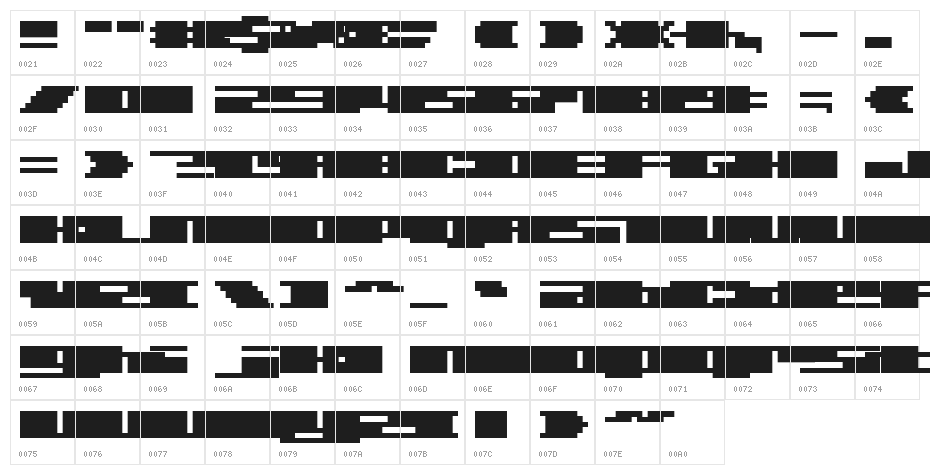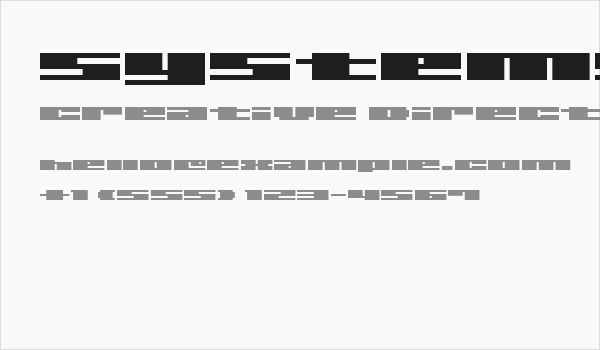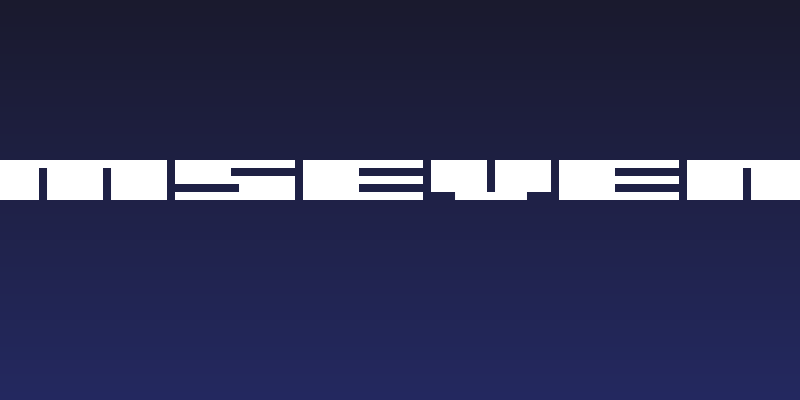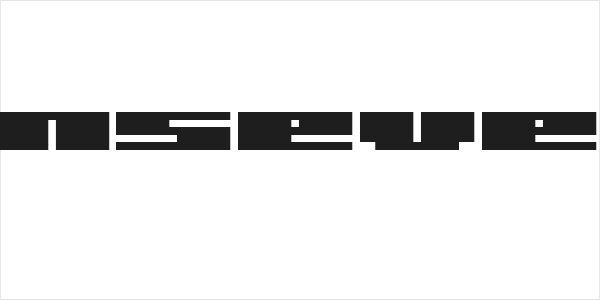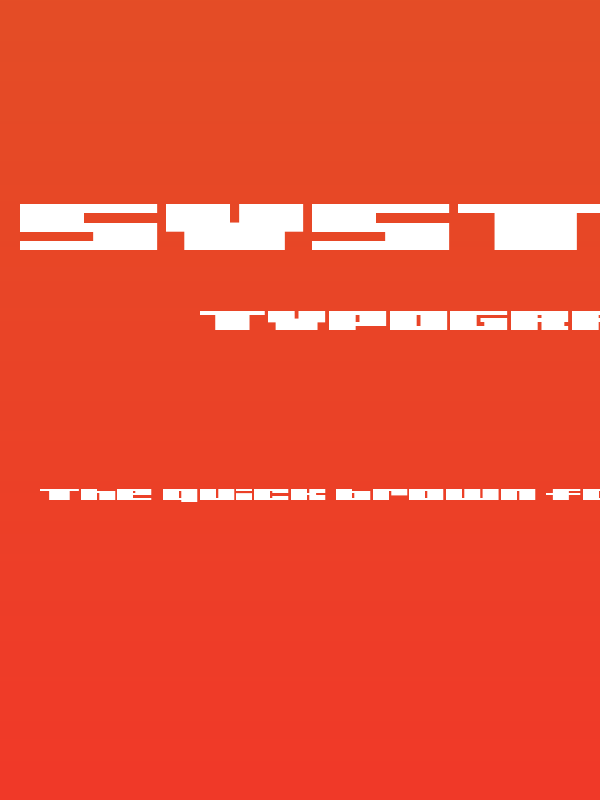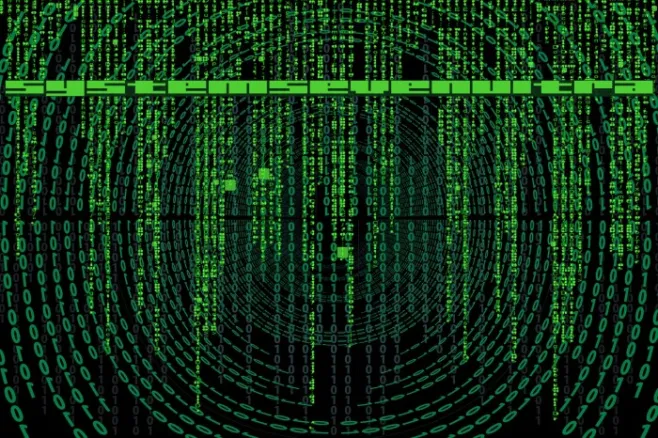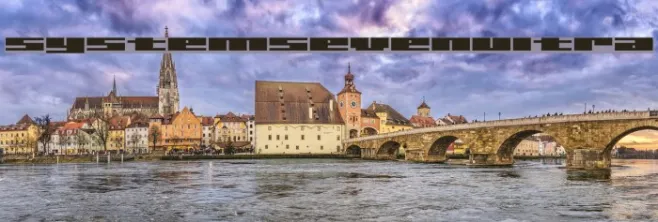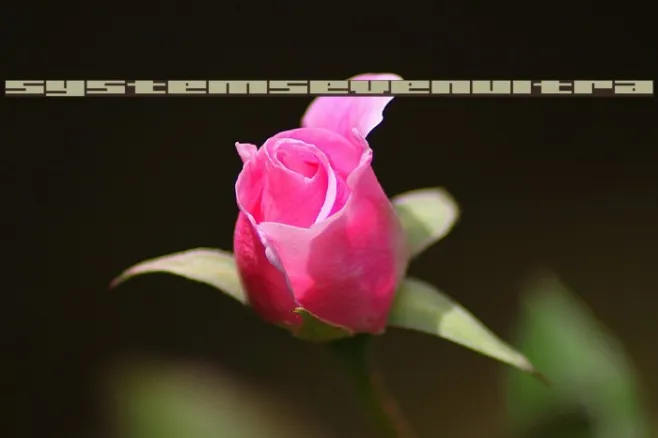
SystemSevenUltra Font
SystemSevenUltra Description
This font features a bold, geometric design with a futuristic and digital aesthetic. The characters are constructed with sharp angles and straight lines, creating a blocky and pixelated appearance. The uppercase and lowercase letters maintain a consistent height, contributing to a uniform look. The numbers and special characters follow the same design principles, ensuring a cohesive style throughout. The font's unique structure makes it stand out, ideal for projects that require a modern and technological feel.